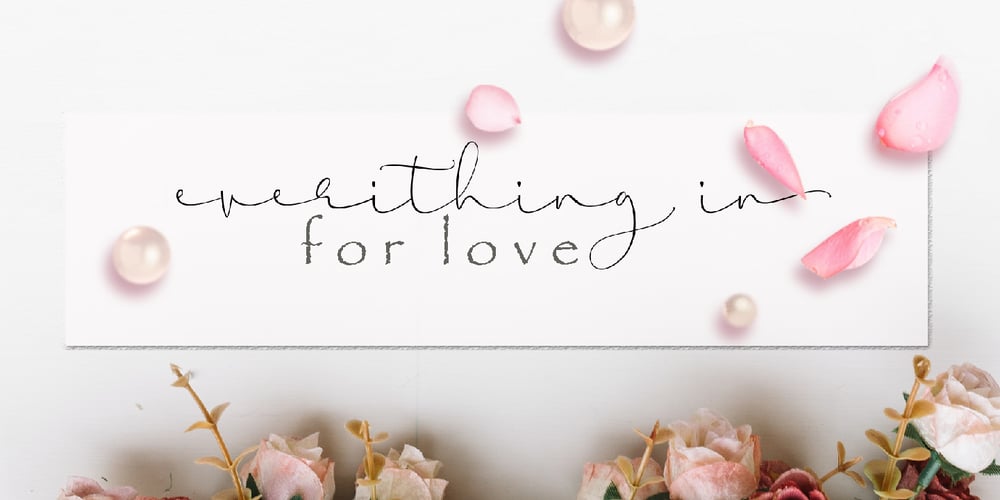
Syakira
Syakira font
Syakira Font Family was designed by Nasrullah and published by Sulthan Studio. Syakira contains 1 styles and family package options. Syakira Script has a romantic and modern calligraphic style, and is ready to give your design a fresh and fabulous Style. Syakira Script comes as a single font file packed full of great features and cuteness. Perfect for weddings, branding and romantic invitations and also suitable for various purposes such as digital lettering, headings, logos, wedding invitations, t-shirts, letterheads, signage and much more! Thank You, Sulthan Studio